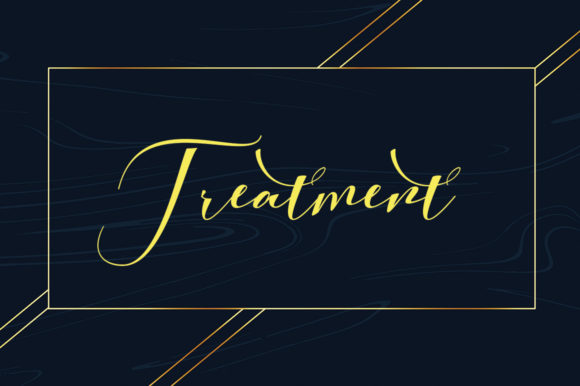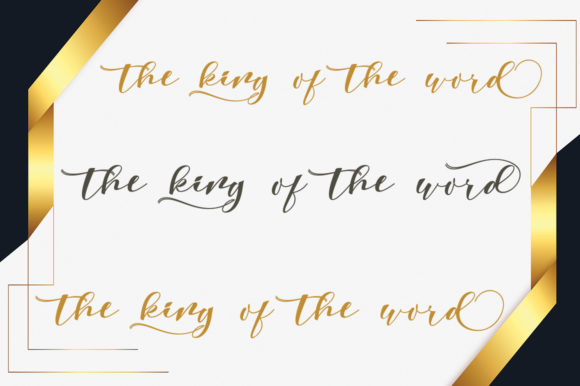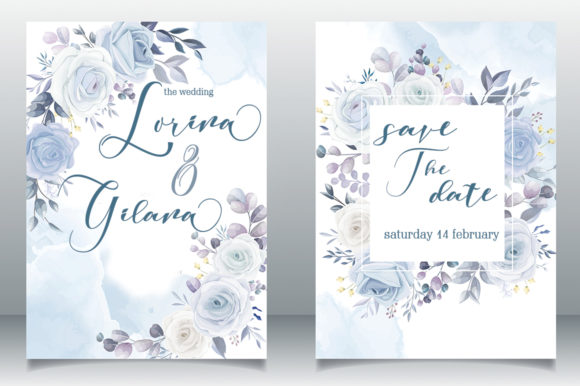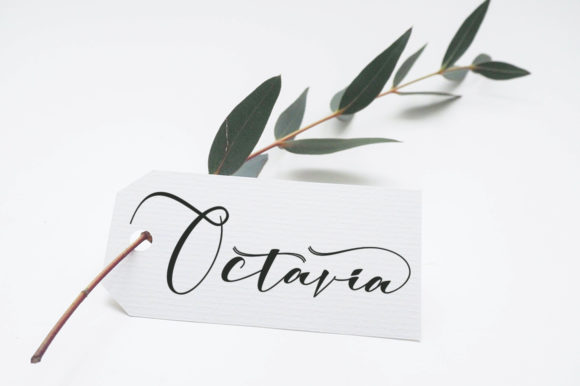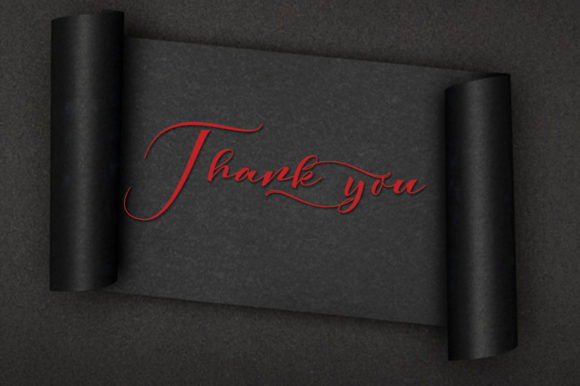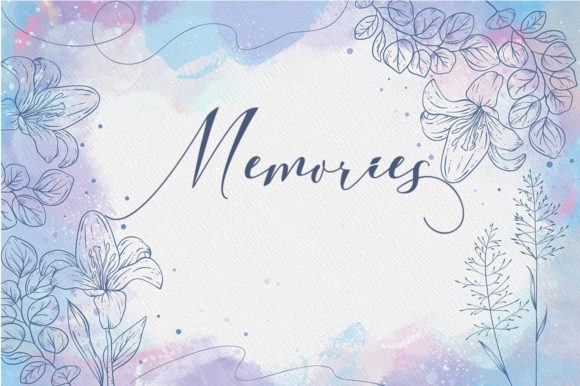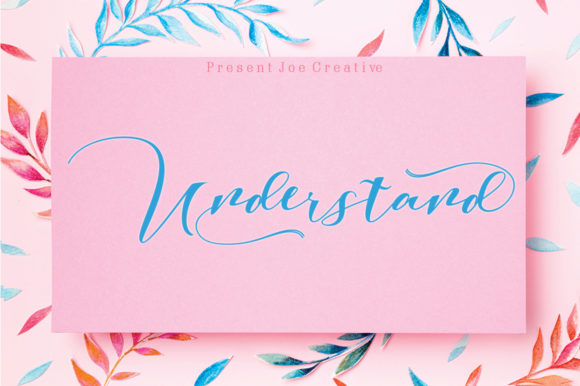
Bellagio Font
About Bellagio Font
Bellagio is an elegant handwritten font, that features a very delicate and classy look. Not too thin and not too thick, balanced and varied, Bellagio was designed to enhance the beauty of your projects.